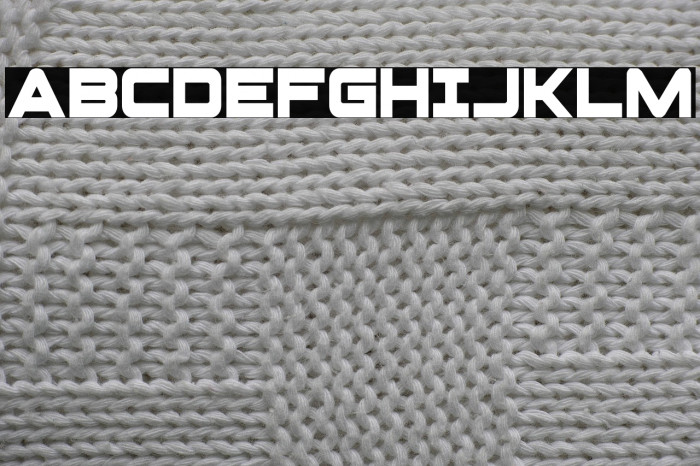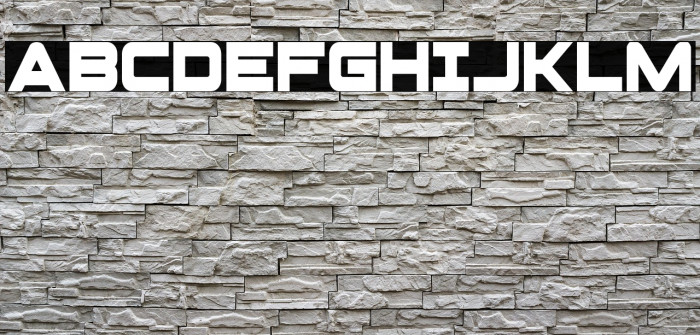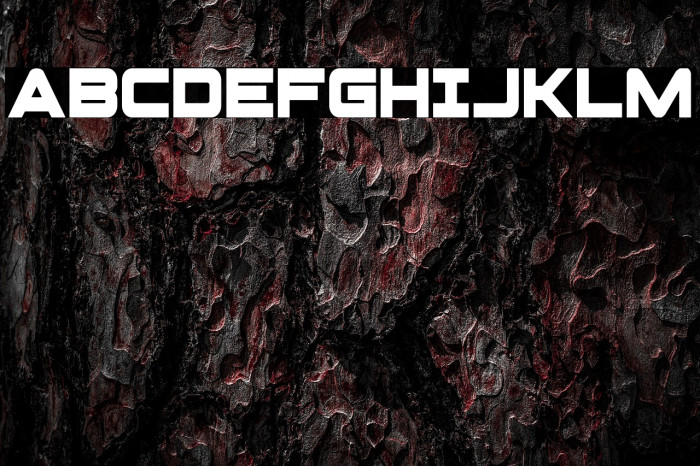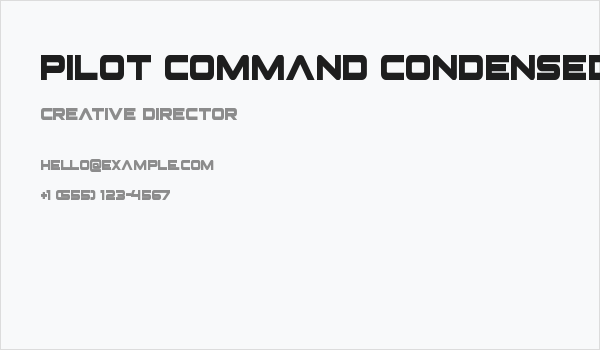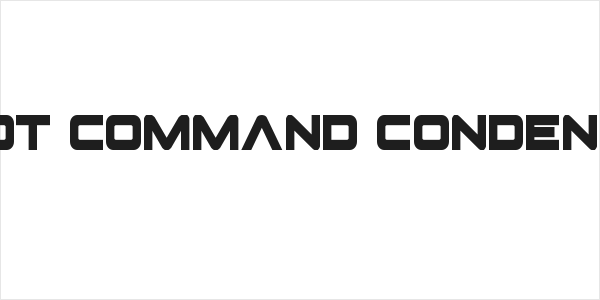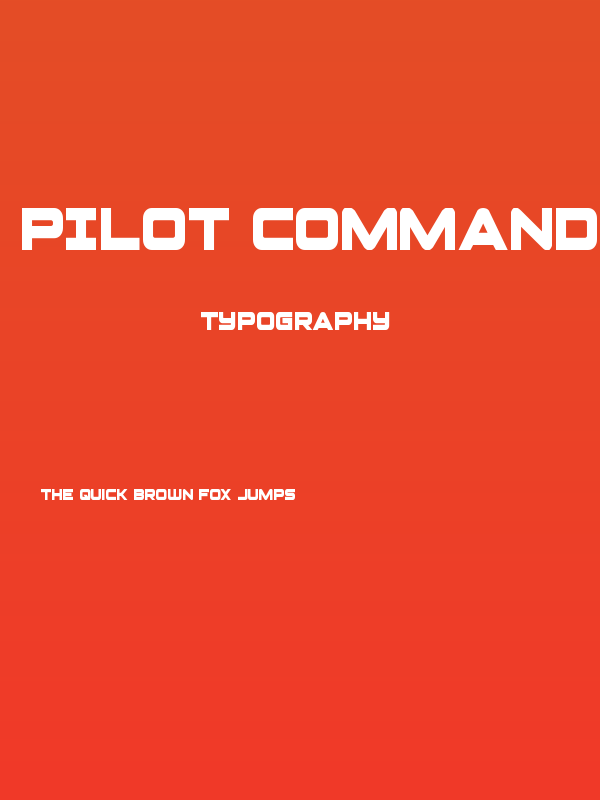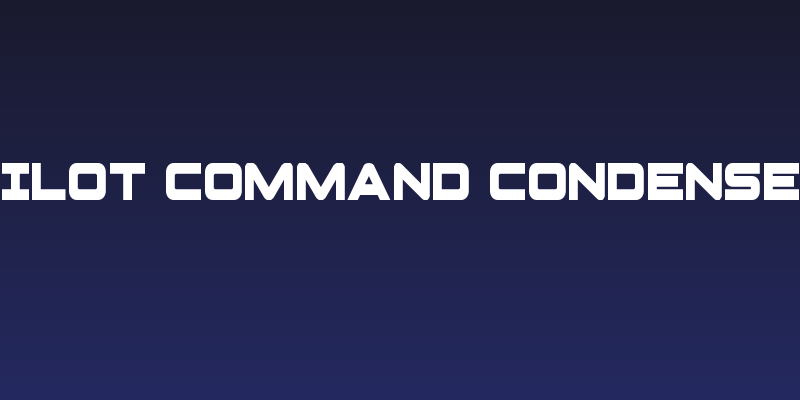
Pilot Command Condensed Font
Pilot Command Condensed Description
This font features a bold, geometric design with a distinctly modern and futuristic aesthetic. The characters are condensed, giving them a compact appearance, which is further emphasized by the uniform stroke width. The angular and block-like structure of the letters conveys a sense of strength and precision. The uppercase and lowercase letters share similar design traits, maintaining consistency across the typeface. The numerals and special characters are crafted with the same attention to detail, ensuring a cohesive look throughout. This font's style is ideal for projects that require a strong, impactful visual presence.
| Proposed Projects | Ideal for technology branding, sci-fi themed designs, video game interfaces, and modern advertising campaigns. |